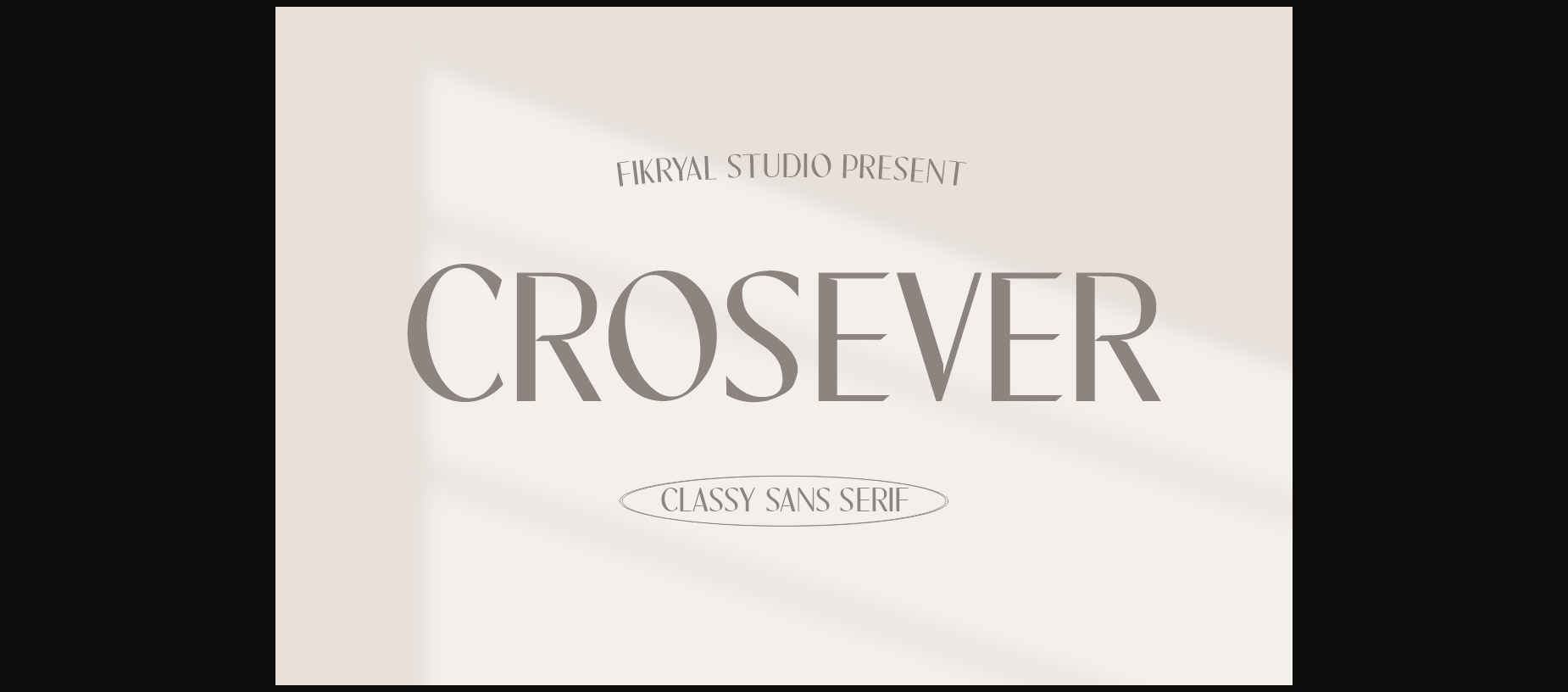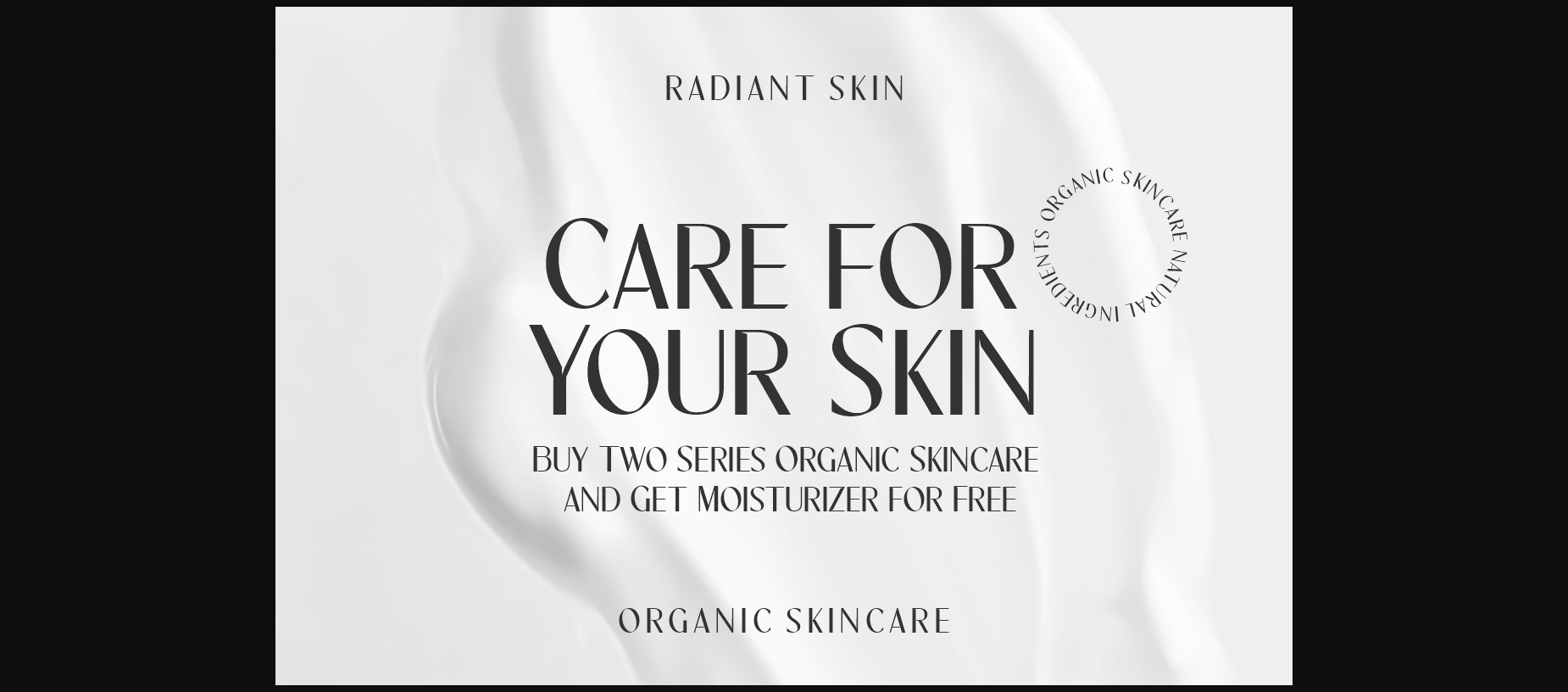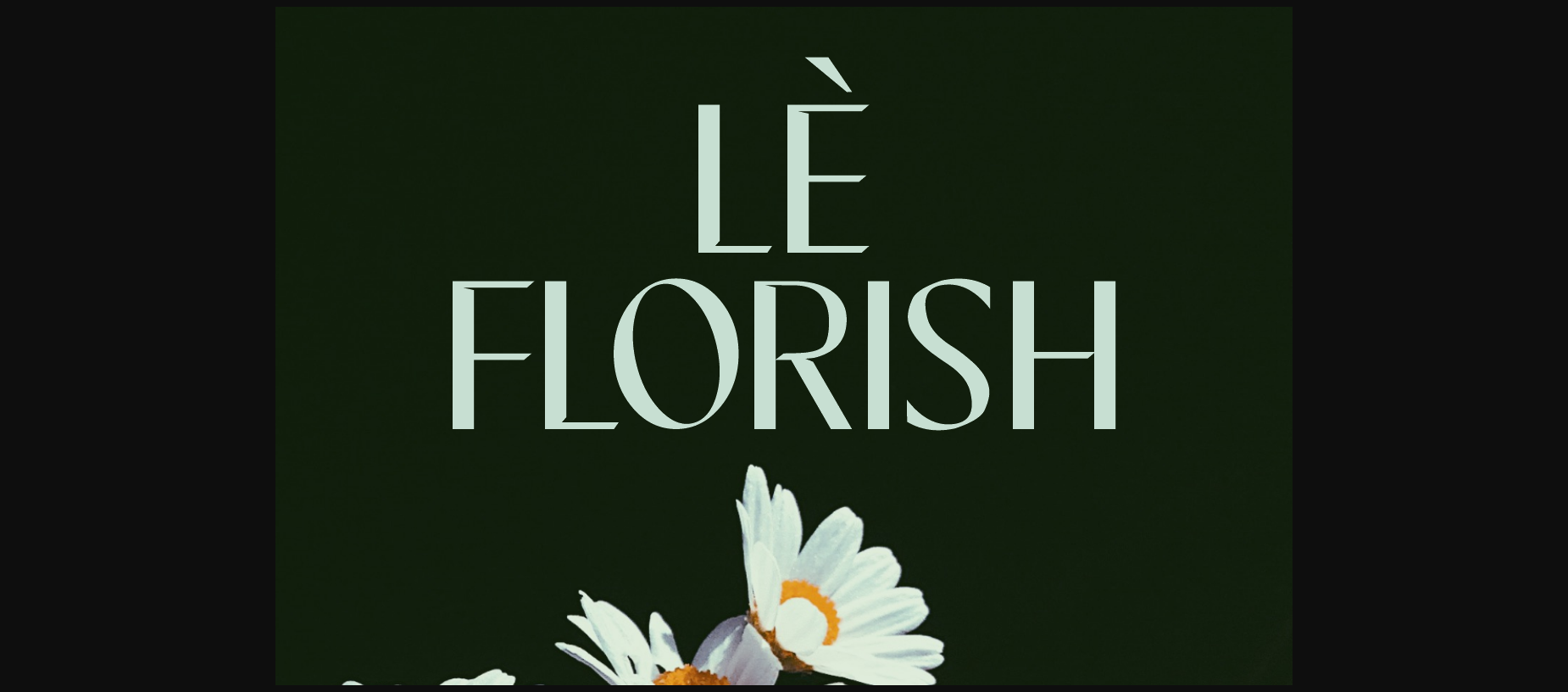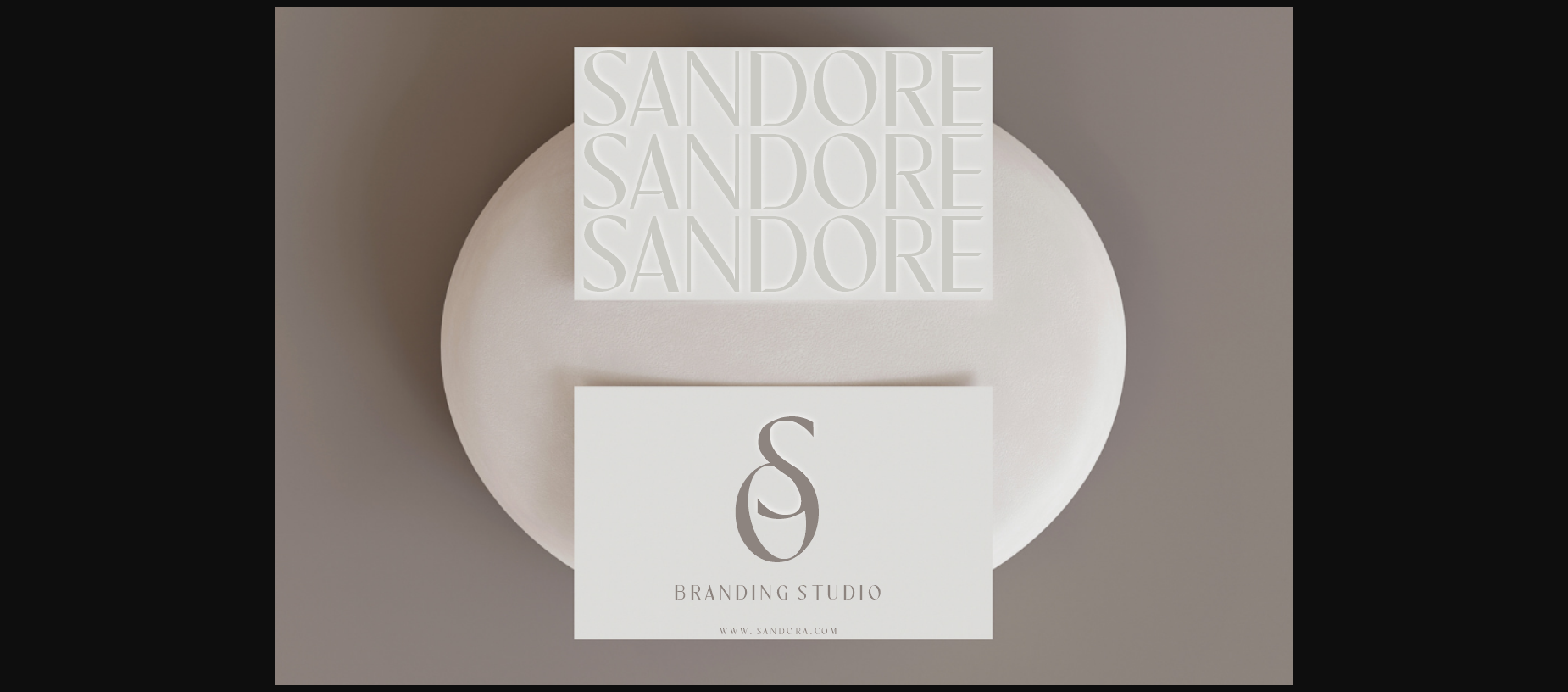
About Crosever Font
Crosever is a classy, simple, and elegant sans serif font, perfect for projects needing a touch of sophistication with clean lines and a luxurious feel. Ideal for design projects requiring an elegant yet minimalist touch, Crosever Classy delivers a charming and professional impression in every usage.